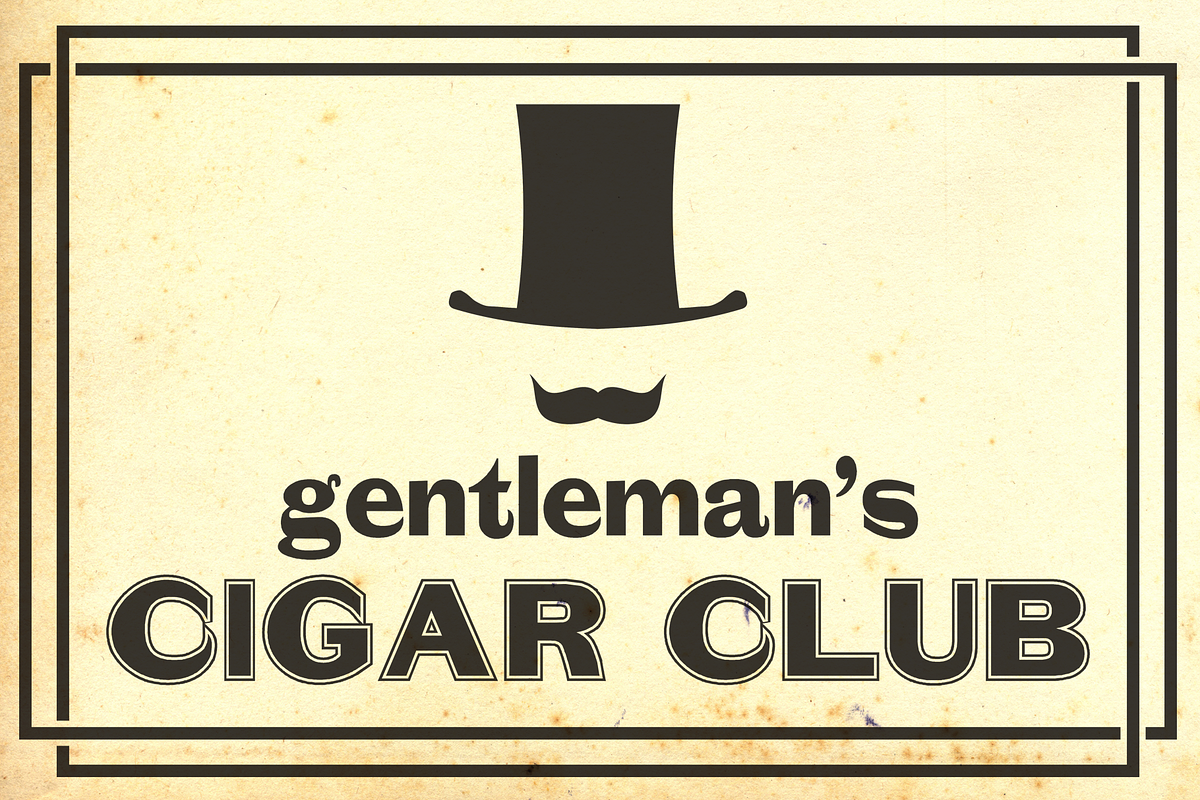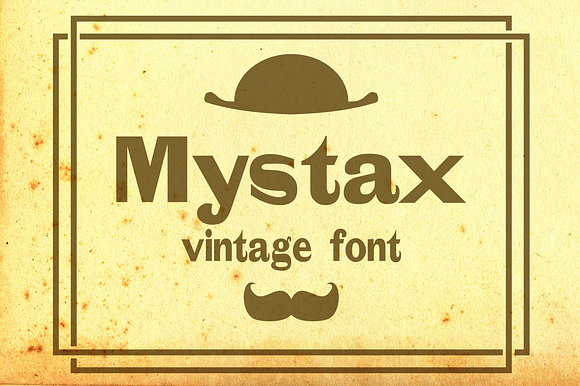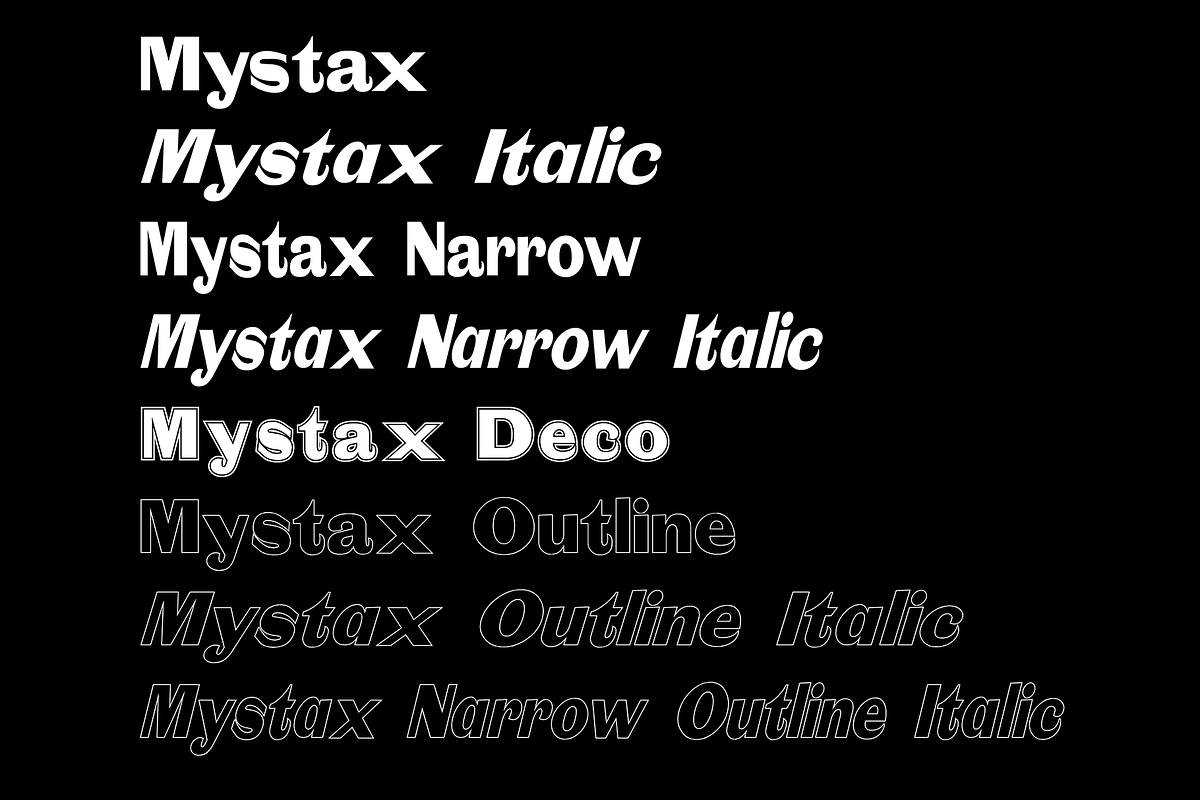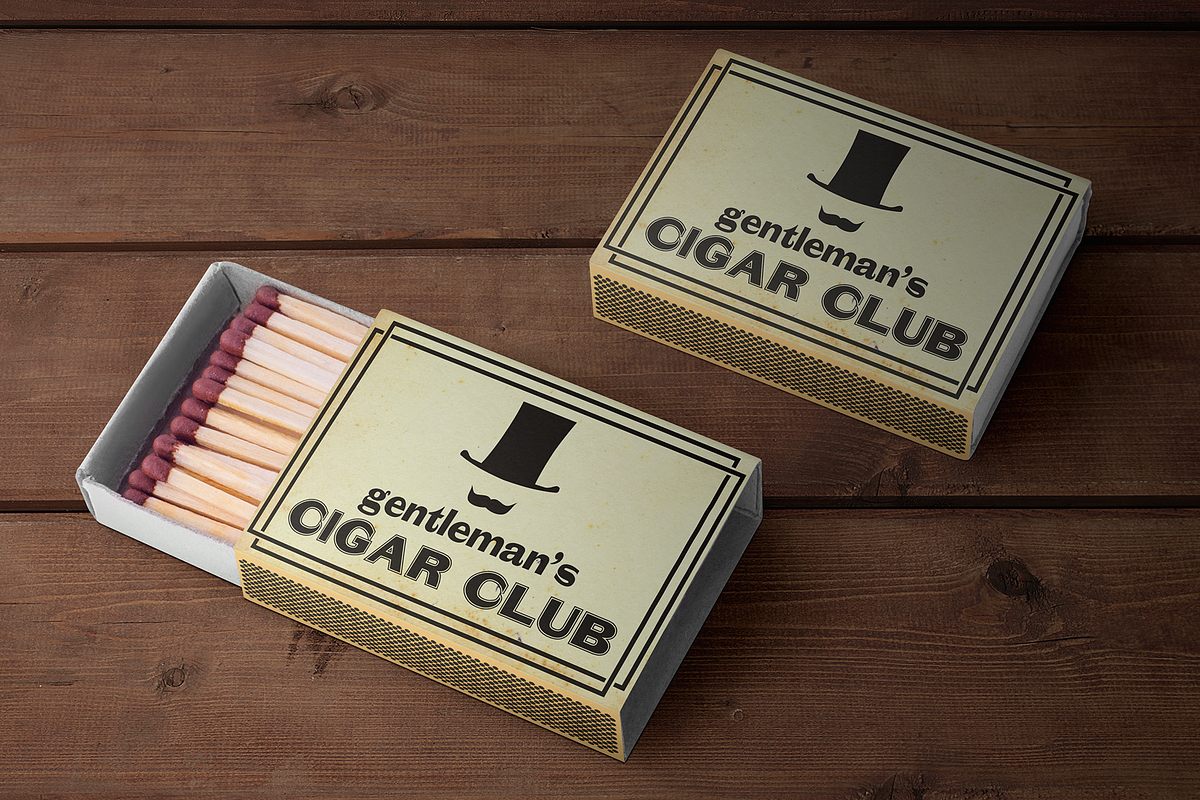
Mystax - Vintage Font
Mystax is a Vintage Font.
- It can be used for package, signs, invitation and much more.
Mystax - Vintage Font by Minhocossauro Emporium fits naturally into Branding, posters, packaging, typography.